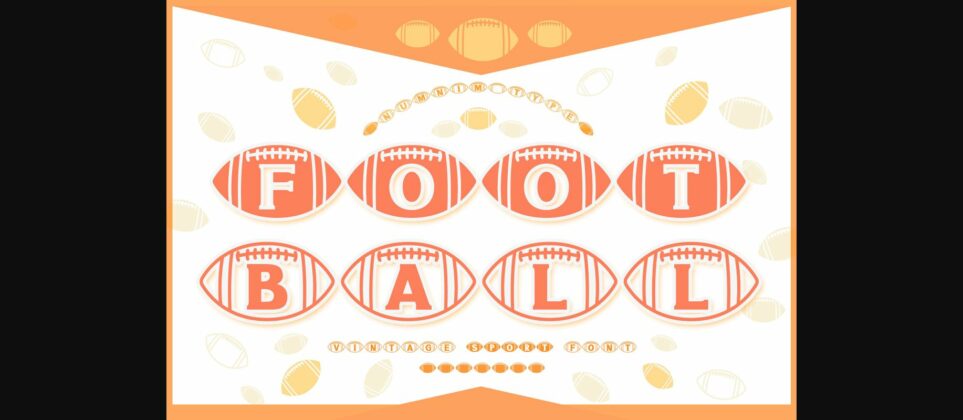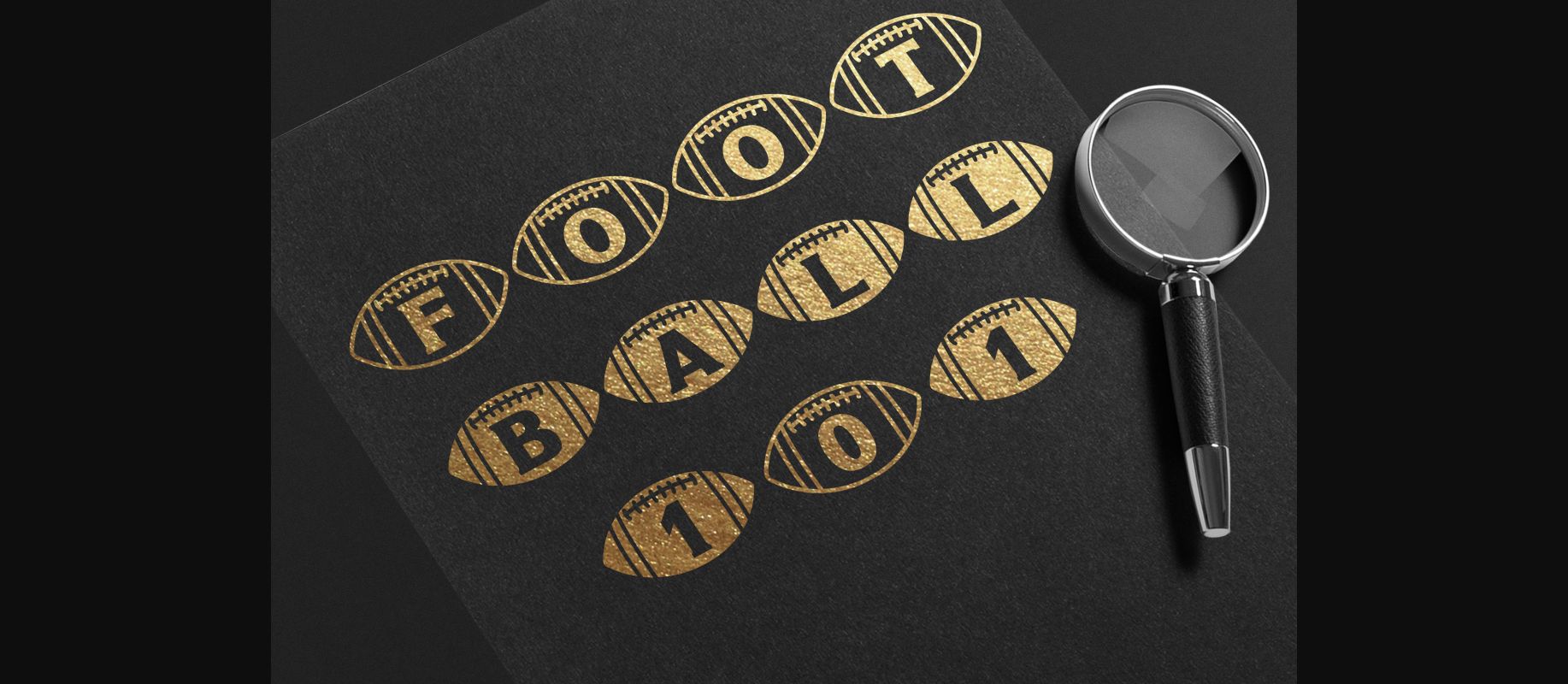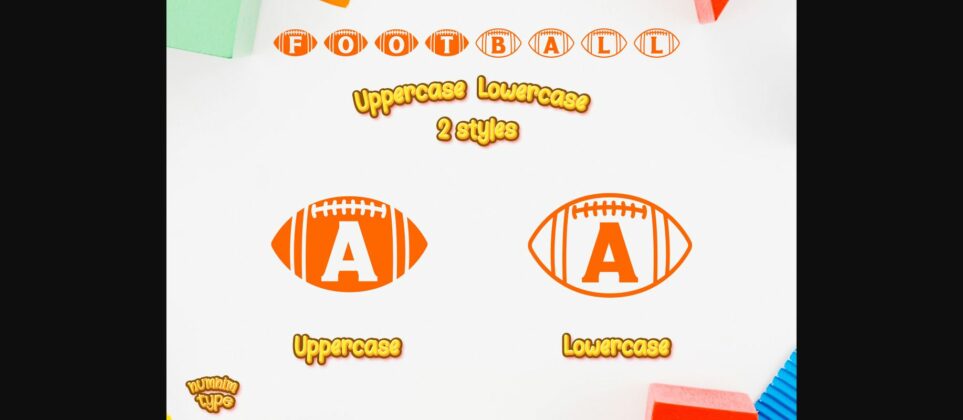
About Football Font
Football is a cool and bold decorative font. It is ideal for creating sport related designs. Add it confidently to your projects, and you will love the results.